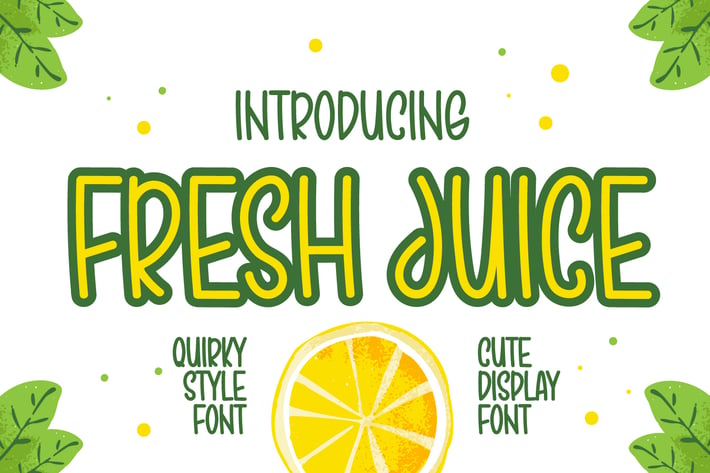
Fresh Juice - Quirky & Cute Display Font
Introducing Fresh Juice - Quirky & Cute Display Font
Fresh Juice is a cute, quirky, and tall lettered handwritten font. Whatever the topic, this font will be a wonderful asset to your font library, as it has the potential to enhance any creation.